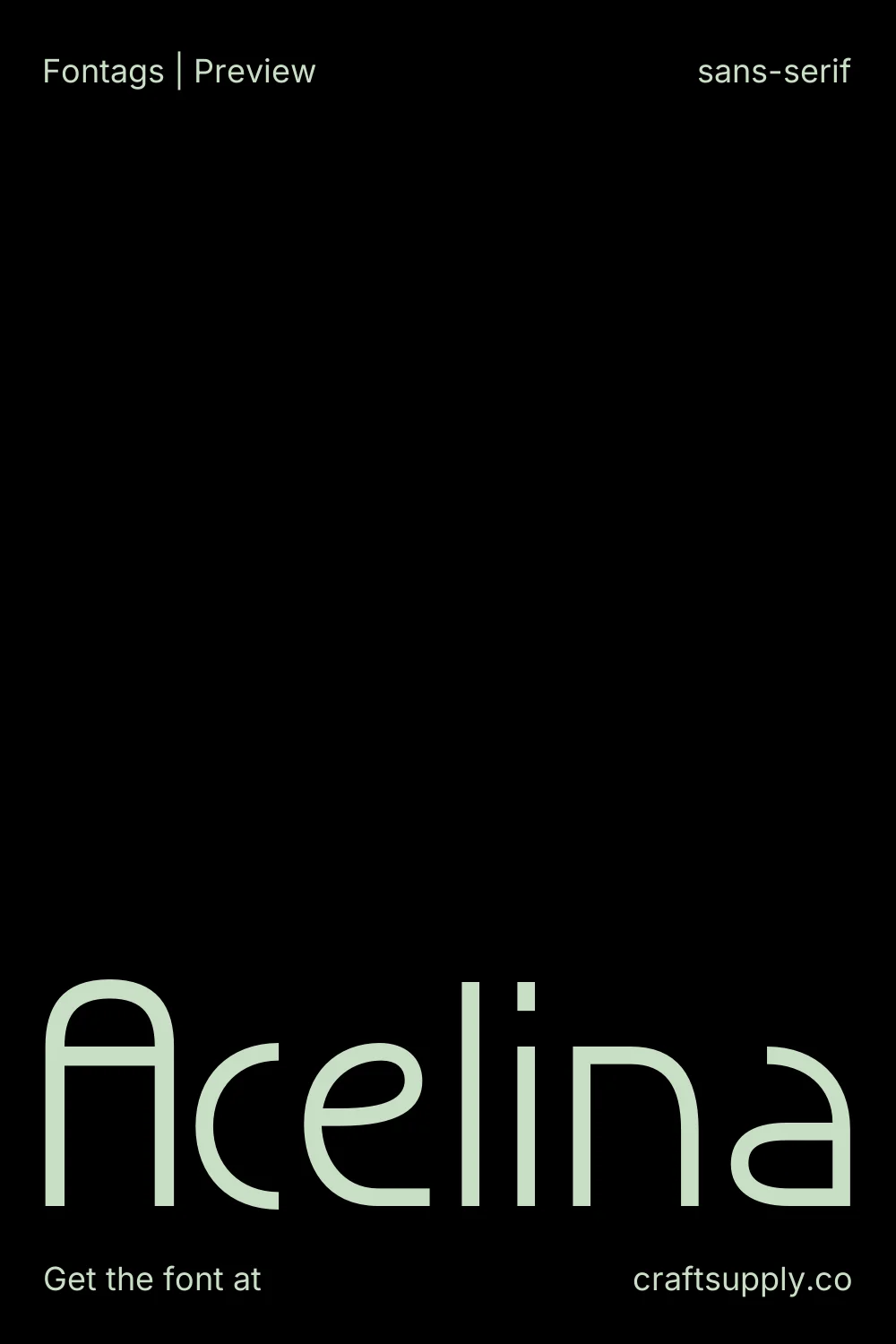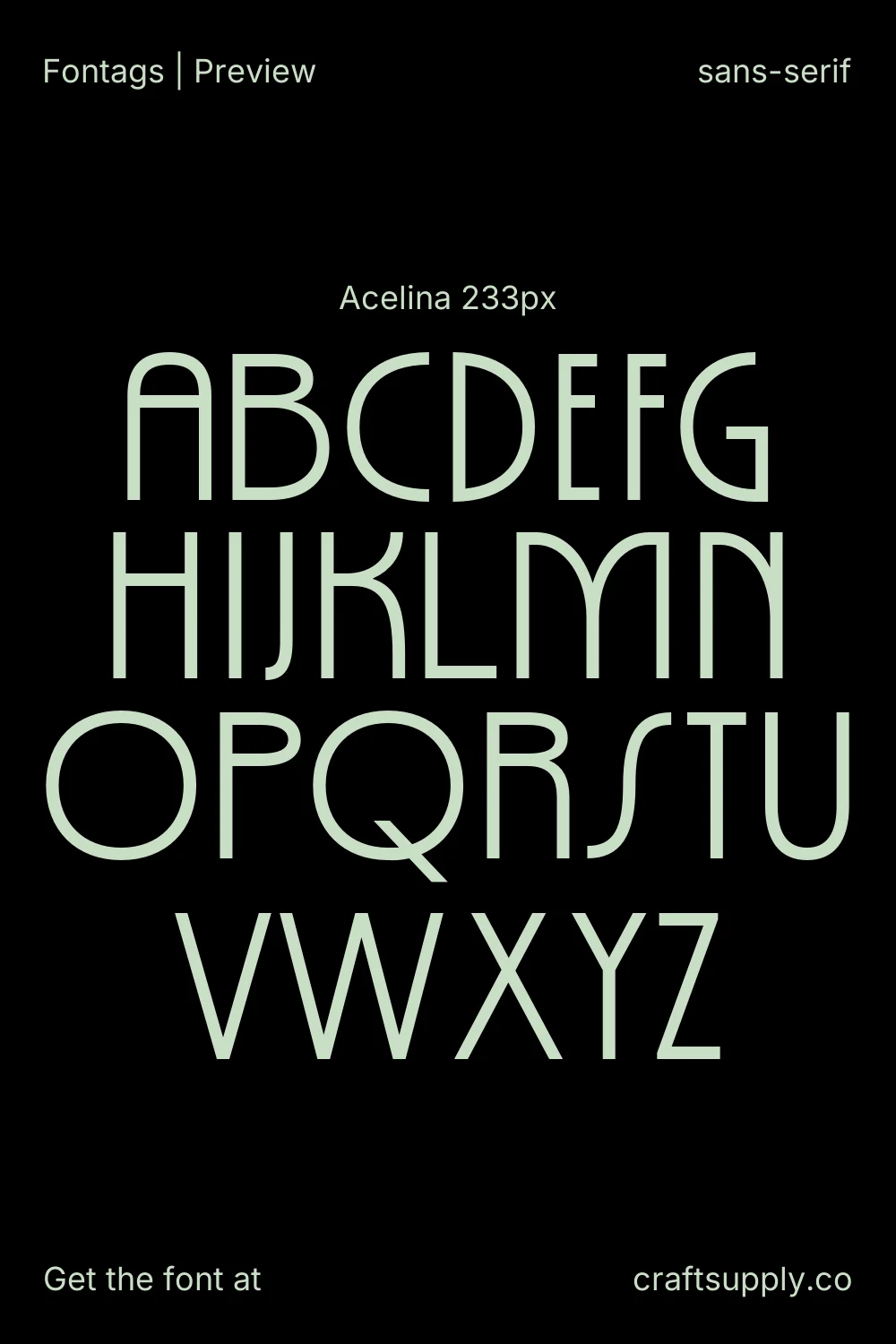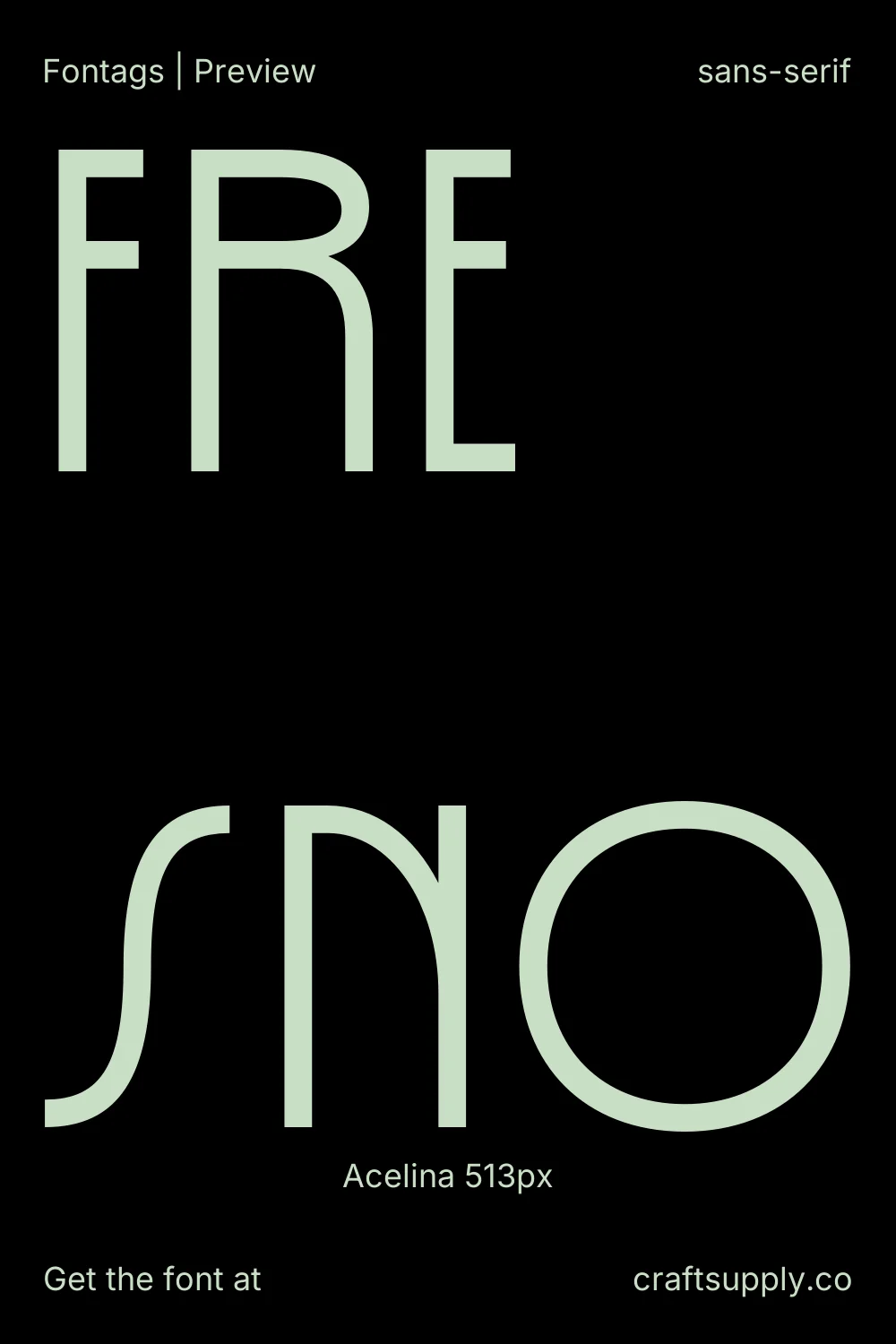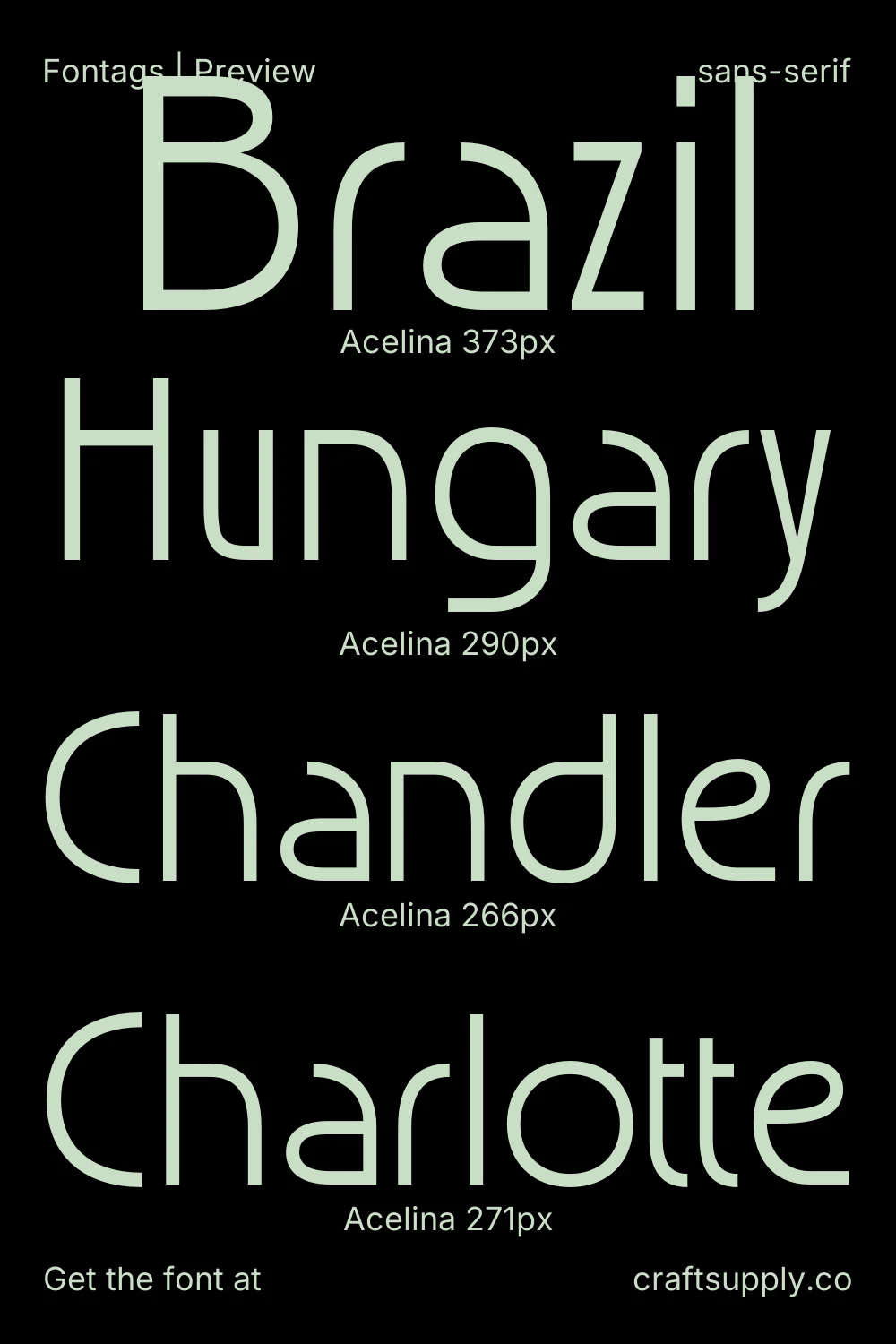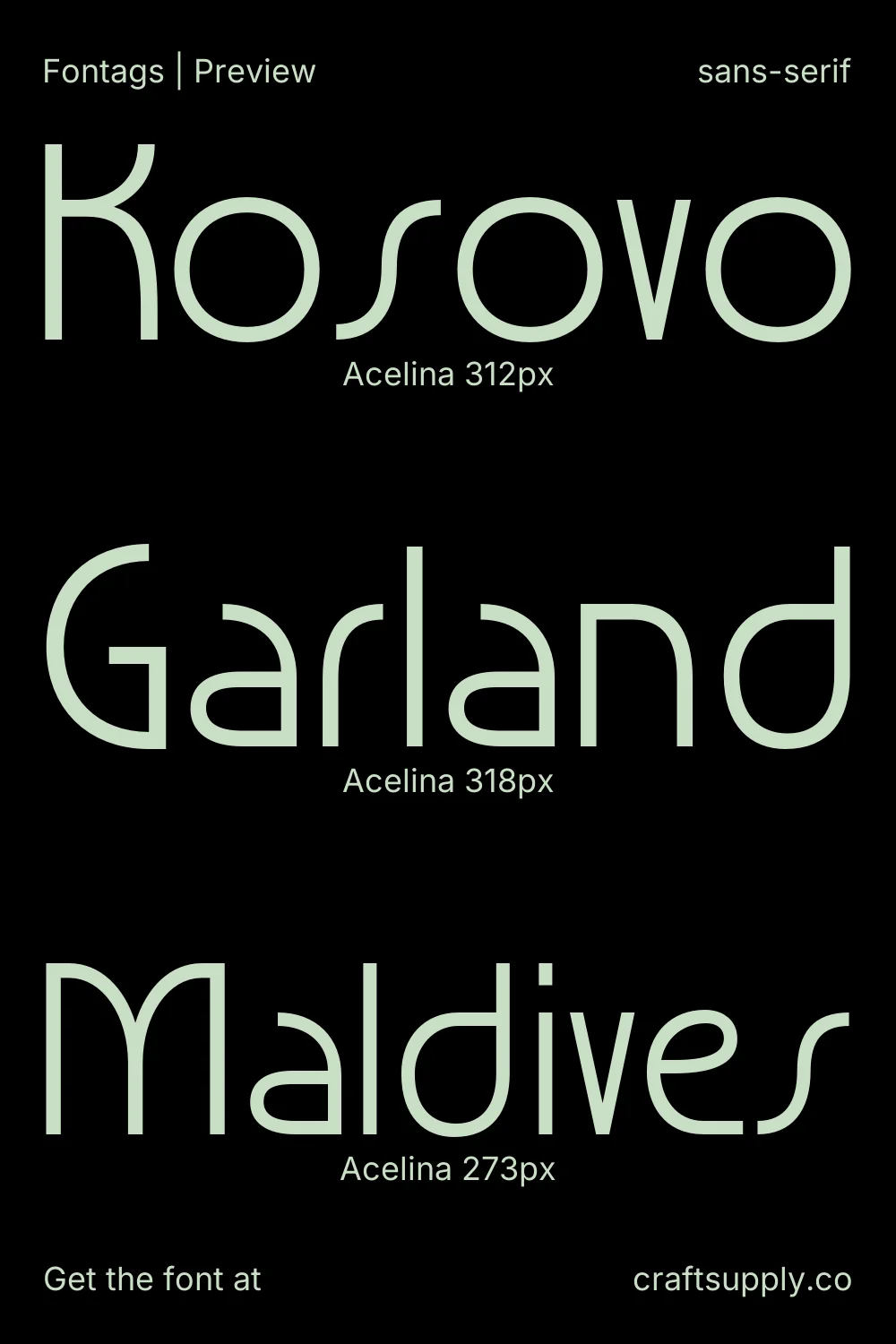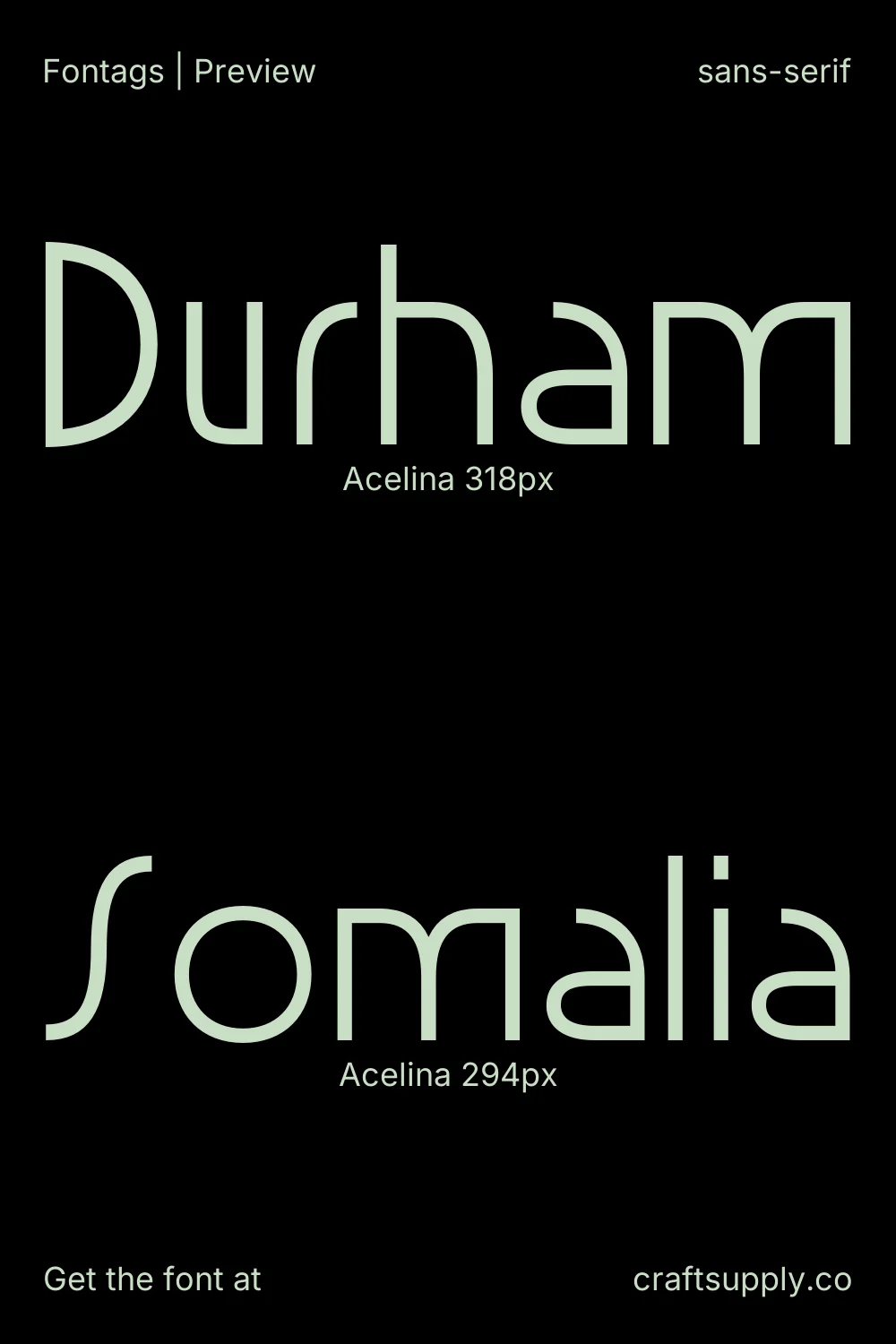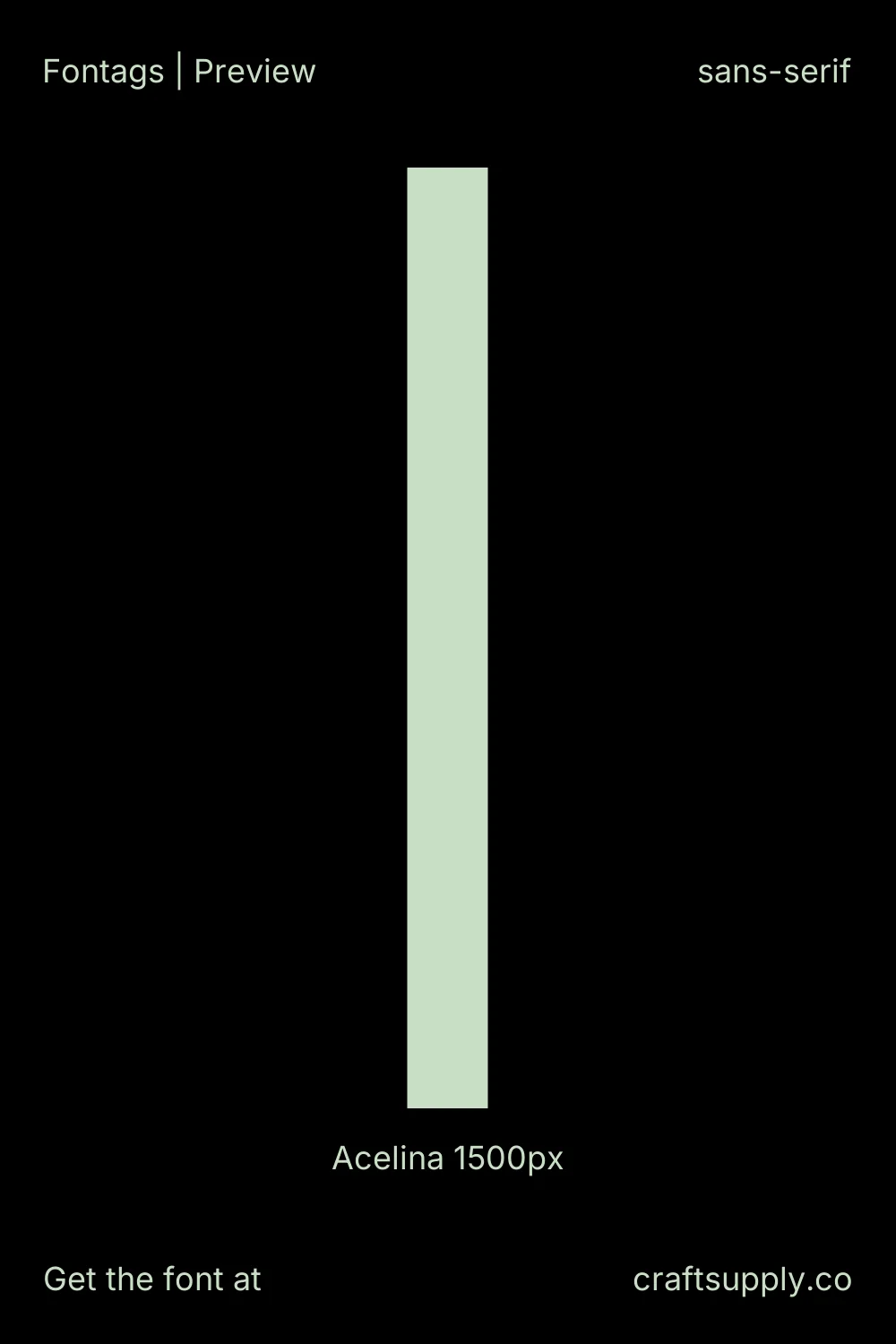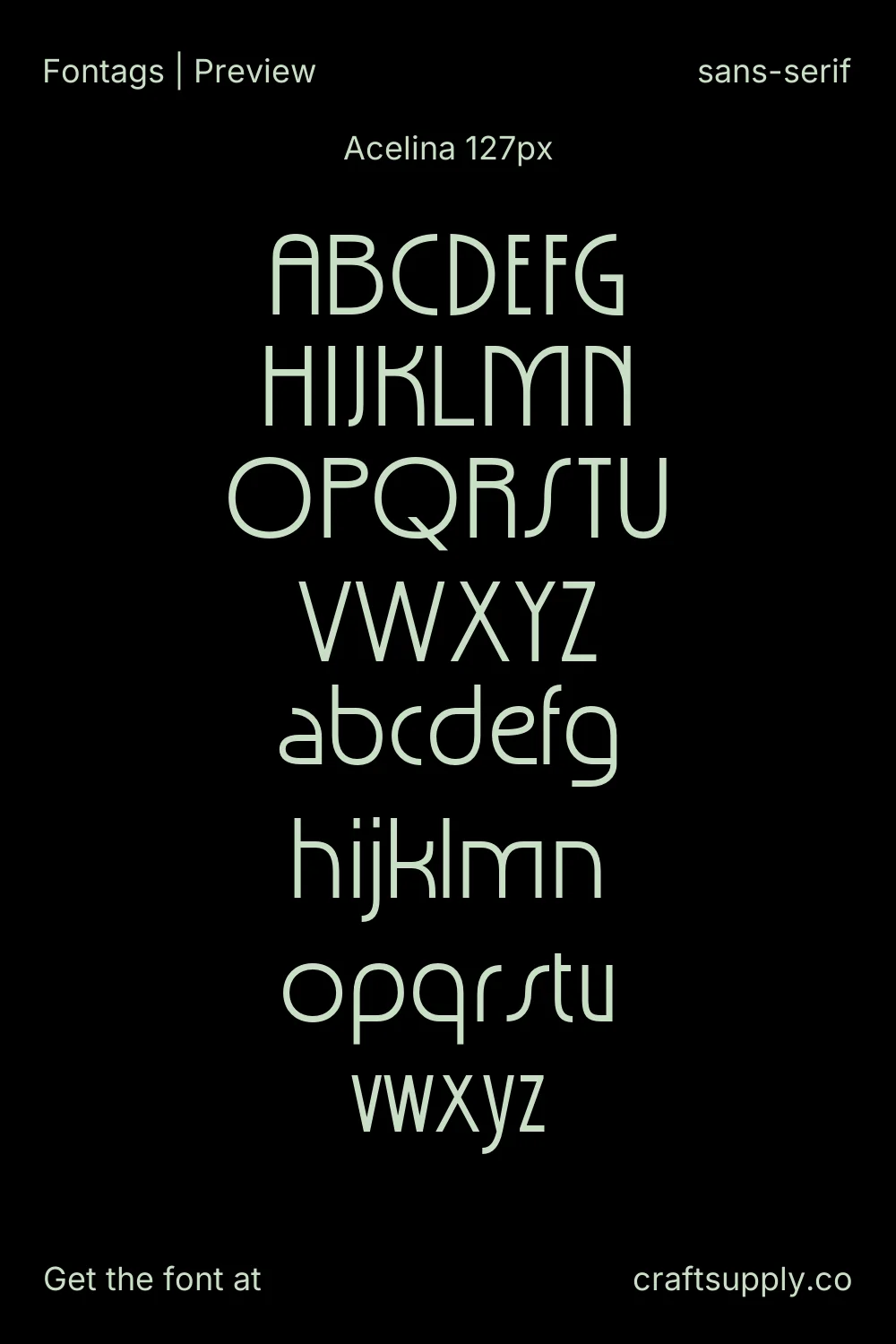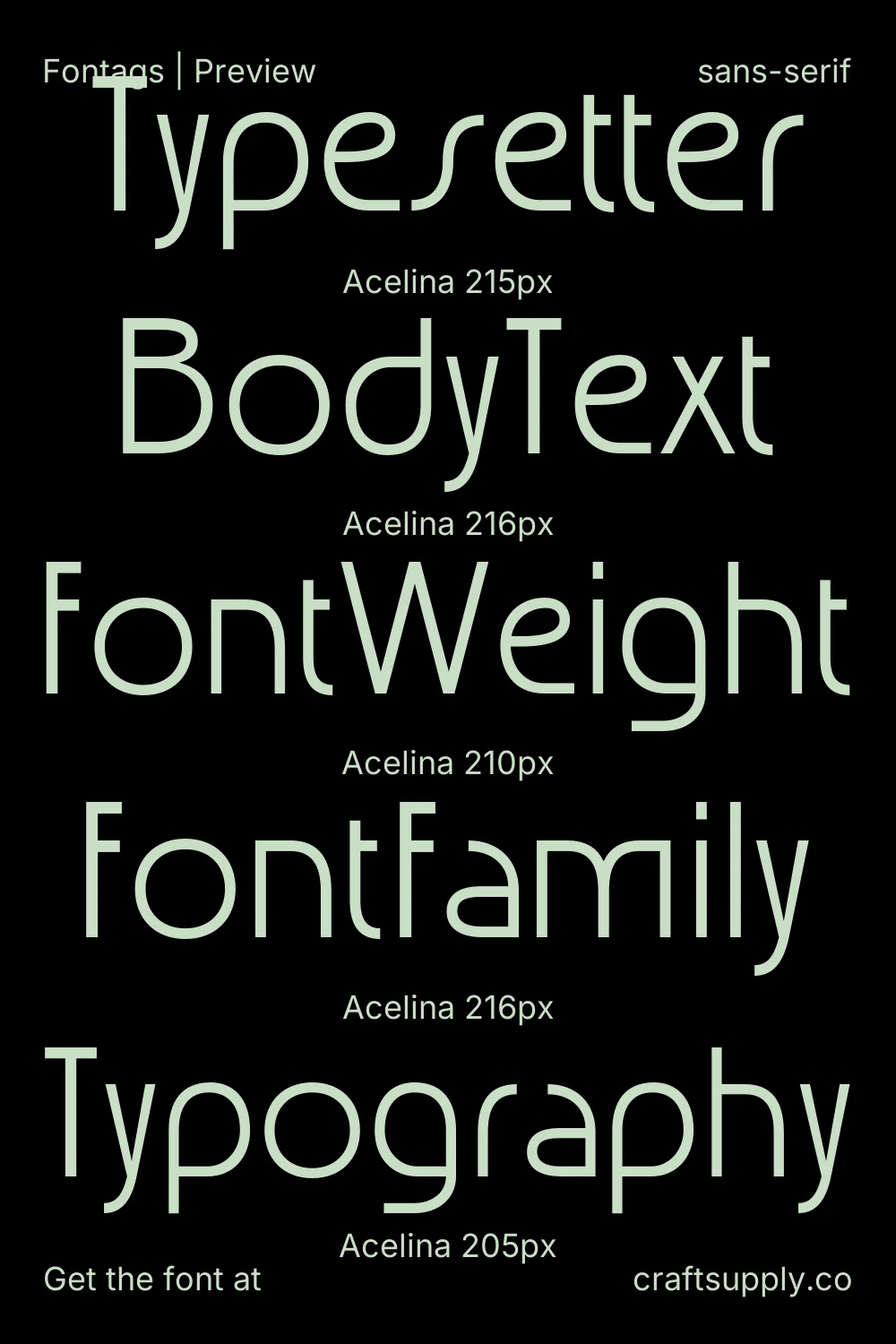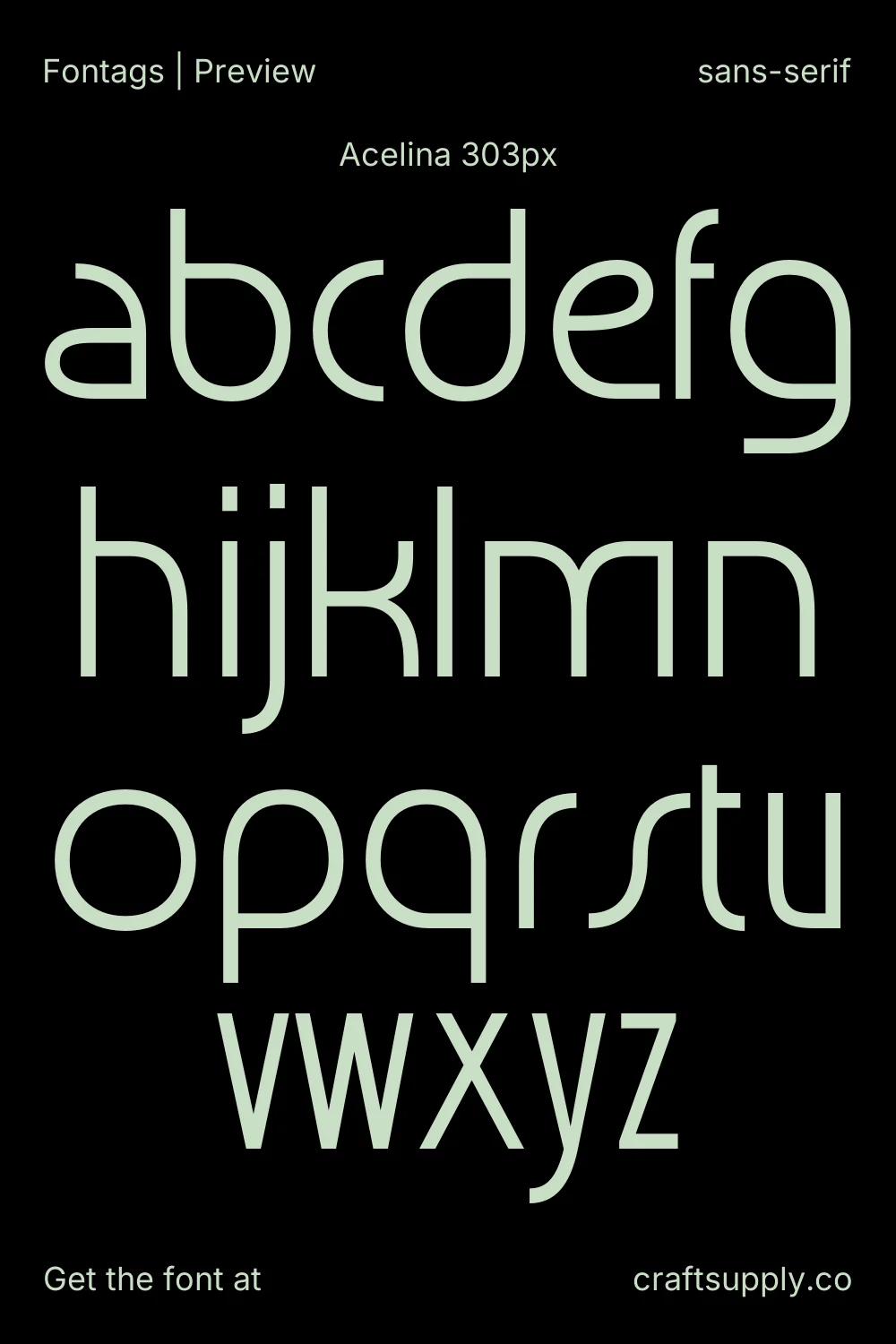
Acelina
Acelina is a monoline sans-serif font that embodies timeless simplicity and clean elegance. Its meticulously crafted characters offer a harmonious and modern aesthetic, making it ideal for corporate documents, websites, and print materials. This versatile typeface brings clarity and sophistication to any project.